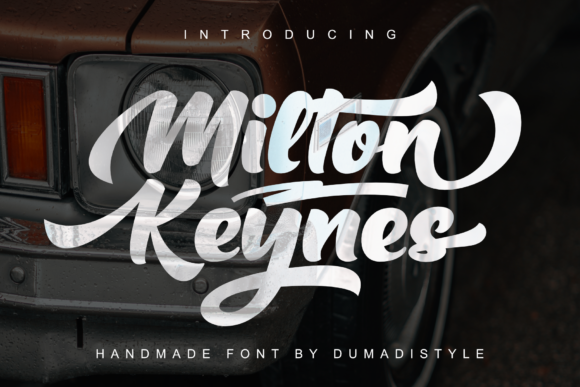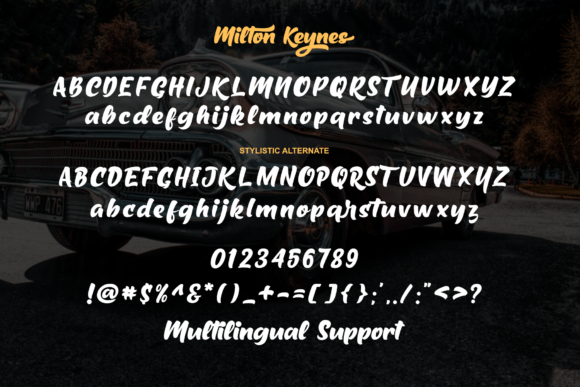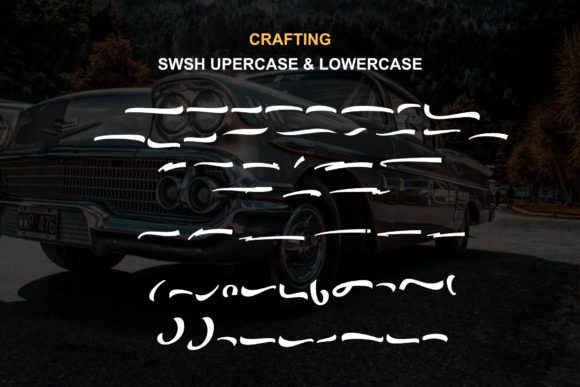
About Milton Keynes Font
Milton Keynes is a modern thick handwritten font. It is great for branding logos, t-shirt designs, posters, business cards, typography, newspapers, other design projects and much more!